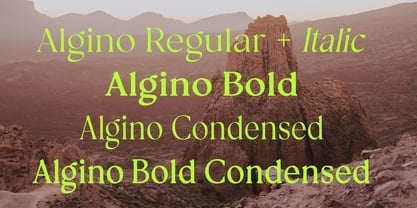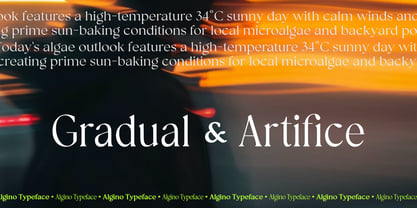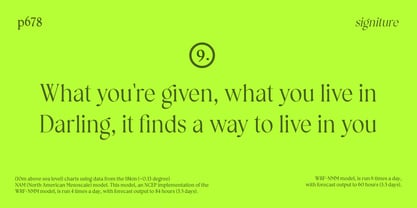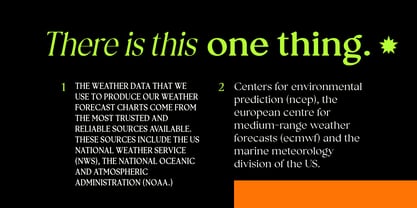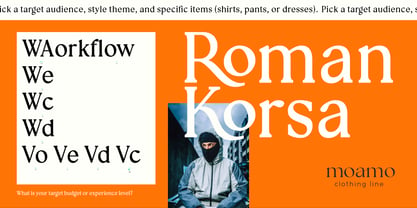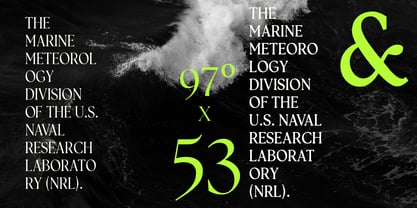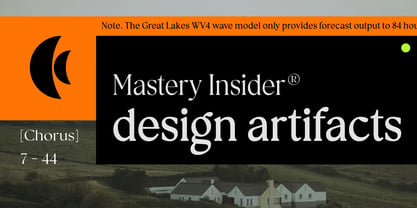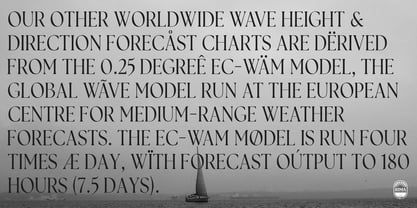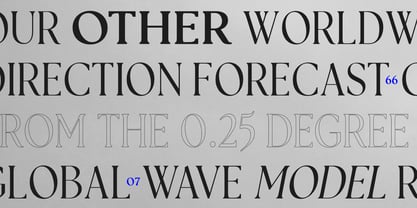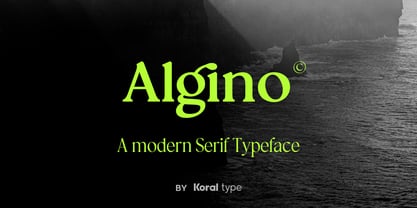
Algino
by Koral Creative
The Algino Font Family was designed by Milos Kozlovacki and published by Koral Creative. Algino contains 5 styles and family package options. More about this family
Algino is a contemporary serif with a timeless character, designed to bring warmth, refinement, and a distinctly human voice to modern typography. Its forms draw from the familiarity of classic serif traditions while introducing subtle contemporary details that keep the family feeling fresh and relevant. The result is a typeface with personality that feels considered rather than nostalgic, making it equally comfortable in sophisticated identities, editorial work, packaging, and cultural or lifestyle brands.
With five carefully developed styles, Algino provides a practical range for building a complete typographic system without losing its character. Lighter styles bring delicacy and elegance to headlines and display work, while the stronger weights provide presence and confidence for branding and impactful typography. Carefully considered proportions, spacing, and kerning give the family a polished rhythm across different sizes and applications, from expressive logotypes and magazine covers to packaging, campaigns, and digital brand communication.